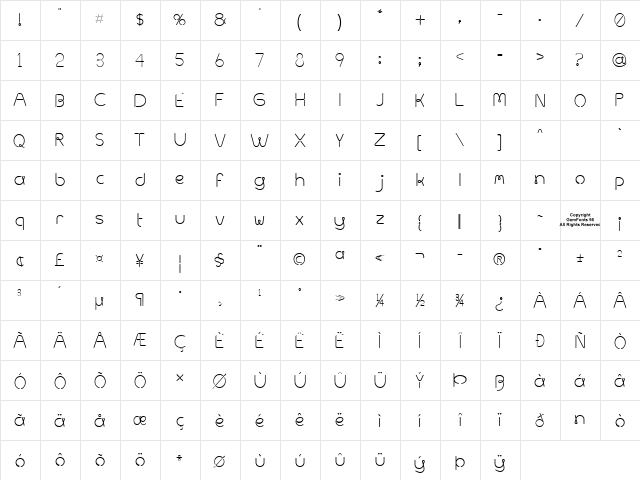
Metal Spagetti 2000 Regular
Design Context for Metal Spagetti 2000 Typeface
Metal Spagetti 2000 offers clean, dependable letterforms without strong stylistic allegiance, making it a practical choice for designers who need flexibility.